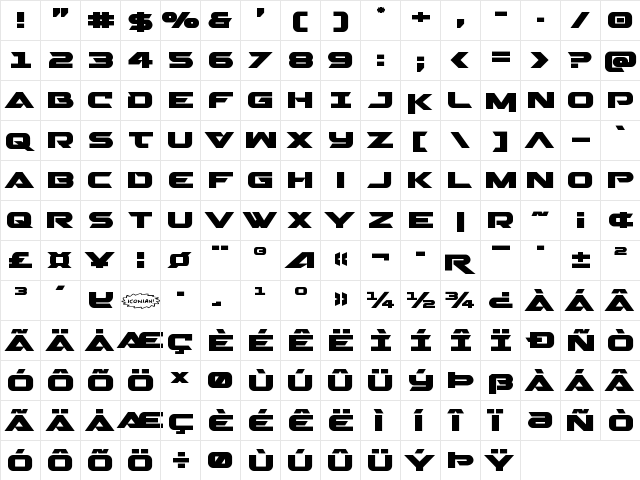
Gemina 2 Expanded Expanded
Design Context for Gemina 2 Expanded Typeface
Gemina 2 Expanded is a composed and adaptable typeface that performs quietly and consistently across a wide range of design contexts.